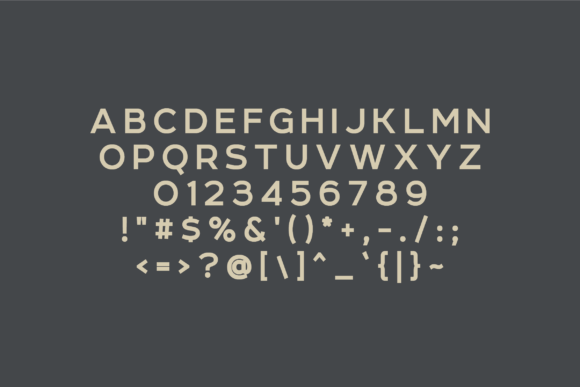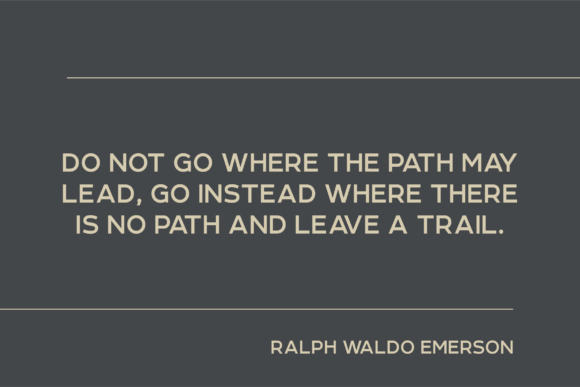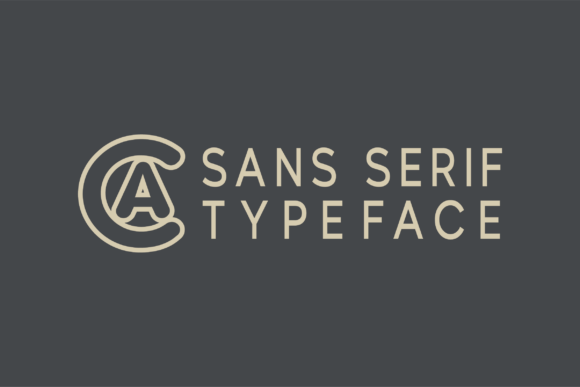
Introduction to Pawprintz Font
Have you ever been working on a creative project, pouring your heart and soul into it, and then realized that the perfect font is missing? This has happened to many designers, and it’s frustrating to say the least. But what if I told you that there’s a solution to this problem? Enter the Pawprintz Font, a modern, classy sans serif typeface that’s sure to elevate your designs to the next level.
This versatile font is perfect for logos, weddings, invitations, quotes, advertisements, print, magazines, and more! With its high quality design, it’s a valuable resource for any designer looking to add a touch of sophistication to their work. And the best part? It’s available for free download, making it an accessible design resource for everyone.
Key Features of Pawprintz Font
- Pawprintz Font is a high-quality design resource, ideal for creative projects that require a unique and playful touch.
- The Pawprintz Font features a transparent background, making it easy to layer and customize in your designs.
- Available in 5 different font styles, each with its own distinct personality and charm.
- With a resolution of 300 DPI, the Pawprintz Font is suitable for a wide range of applications, from print to digital media.
- This versatile font is perfect for designers looking to add a whimsical touch to their creative projects, from branding to editorial content.
Honest Review: Pawprintz Font
I recently came across the Pawprintz Font, and I must say it’s a fantastic addition to any designer’s toolkit. This high-quality font is perfect for any creative project that requires a playful, yet elegant touch.
- ✨ Customizable: The Pawprintz Font comes with a transparent background, making it easy to overlay on any image or design.
- ✨ Versatile: This font is suitable for a wide range of design projects, from children’s books to pet-themed merchandise.
However, I do have a few minor quibbles. The font may not be suitable for formal or corporate projects, as it’s more geared towards fun and playful designs.
⚠️ Limited character set: While the font is extensive, it’s not as comprehensive as some other fonts on the market.
Overall, I’m impressed with the Pawprintz Font. It’s a valuable design resource that’s sure to add a unique touch to any creative project. With its high quality, transparent background, and free download option, it’s a must-have for any designer looking to add some personality to their work.
Getting the Most Out of Pawprintz Font
To get the most out of the Pawprintz Font, experiment with different font sizes, colors, and styles. You can also combine the font with other design elements, like graphics and images, to create visually appealing designs.
Common Use Cases for Pawprintz Font
The Pawprintz Font is perfect for a variety of creative projects, including social media graphics, presentations, and marketing materials. Its high-quality design and transparent background make it an ideal choice for designers looking to add a professional touch to their work.
Q: Does the Pawprintz Font include a transparent background?
Yes, the Pawprintz Font includes a transparent background, making it ideal for use on various design elements, such as logos, icons, and graphics. This feature allows you to easily combine the font with other design elements and create visually appealing compositions.